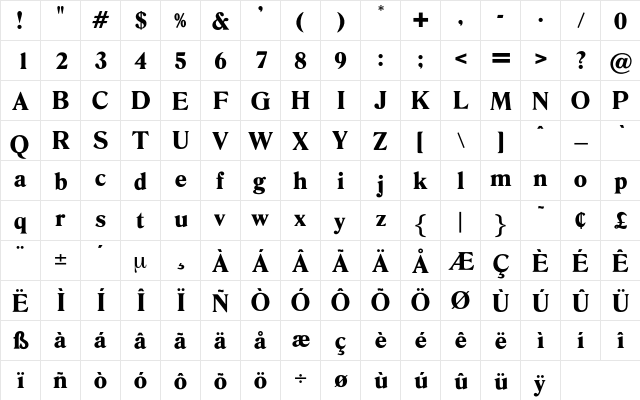
OktaveBold Regular
Design Context for OktaveBold Typeface
OktaveBold is a composed and adaptable typeface that performs quietly and consistently across a wide range of design contexts. Its bold stroke weight gives it real presence on the page.